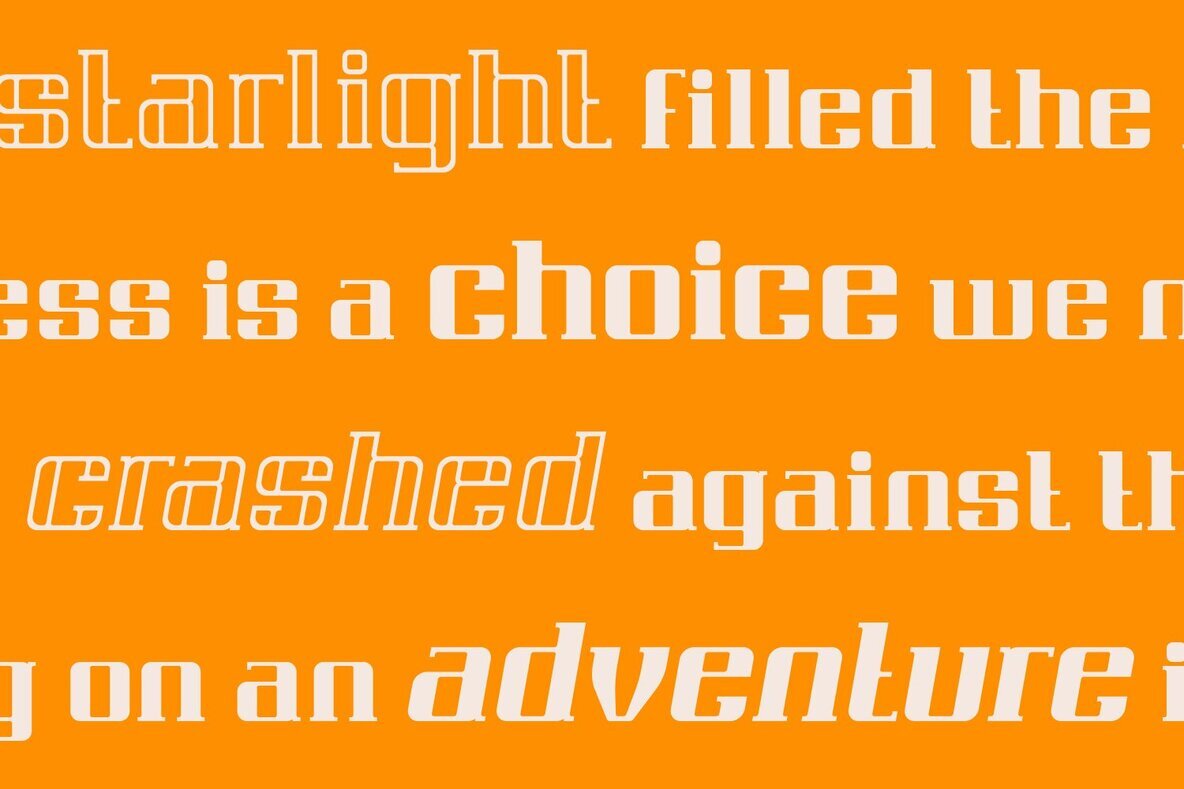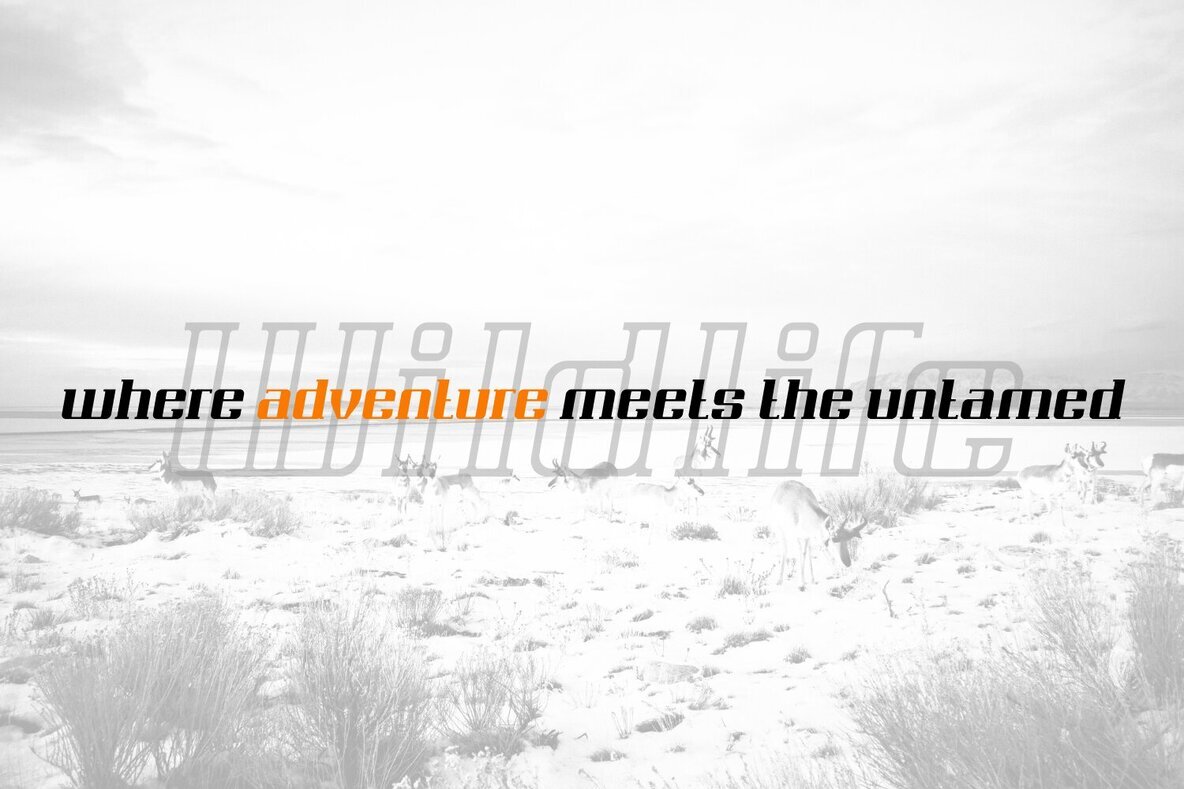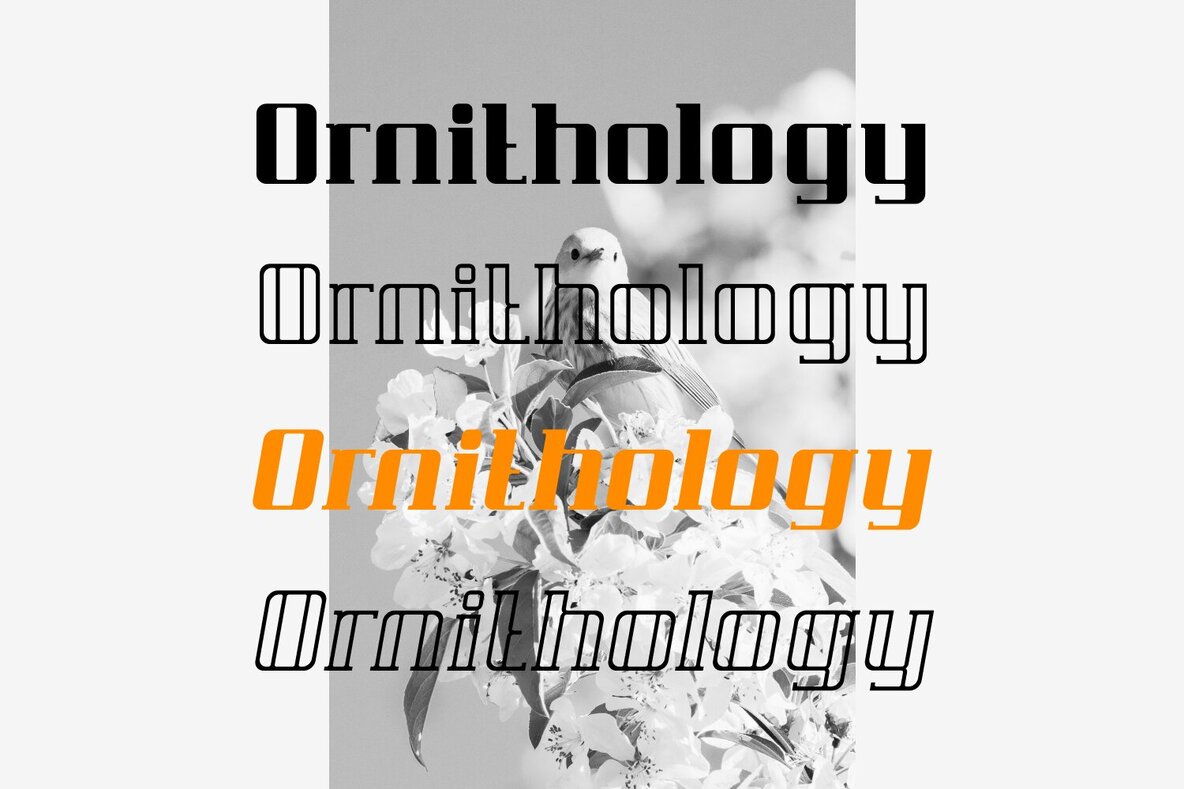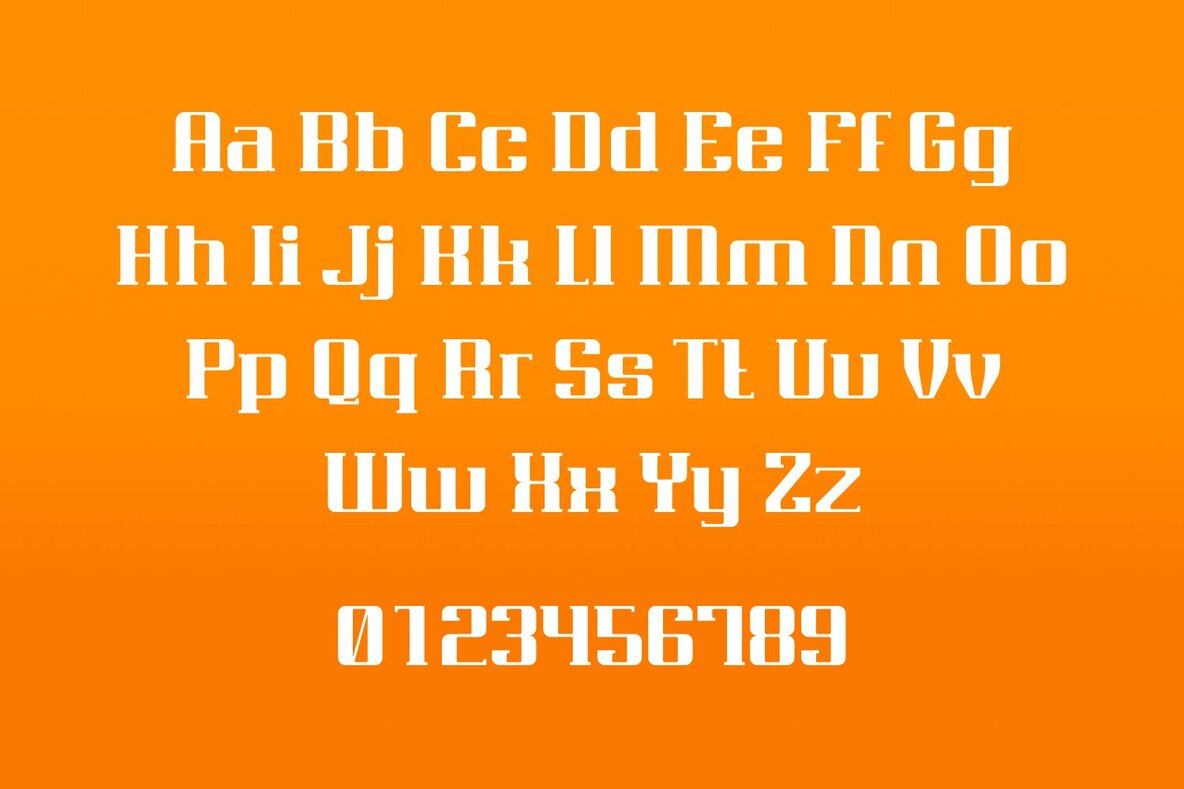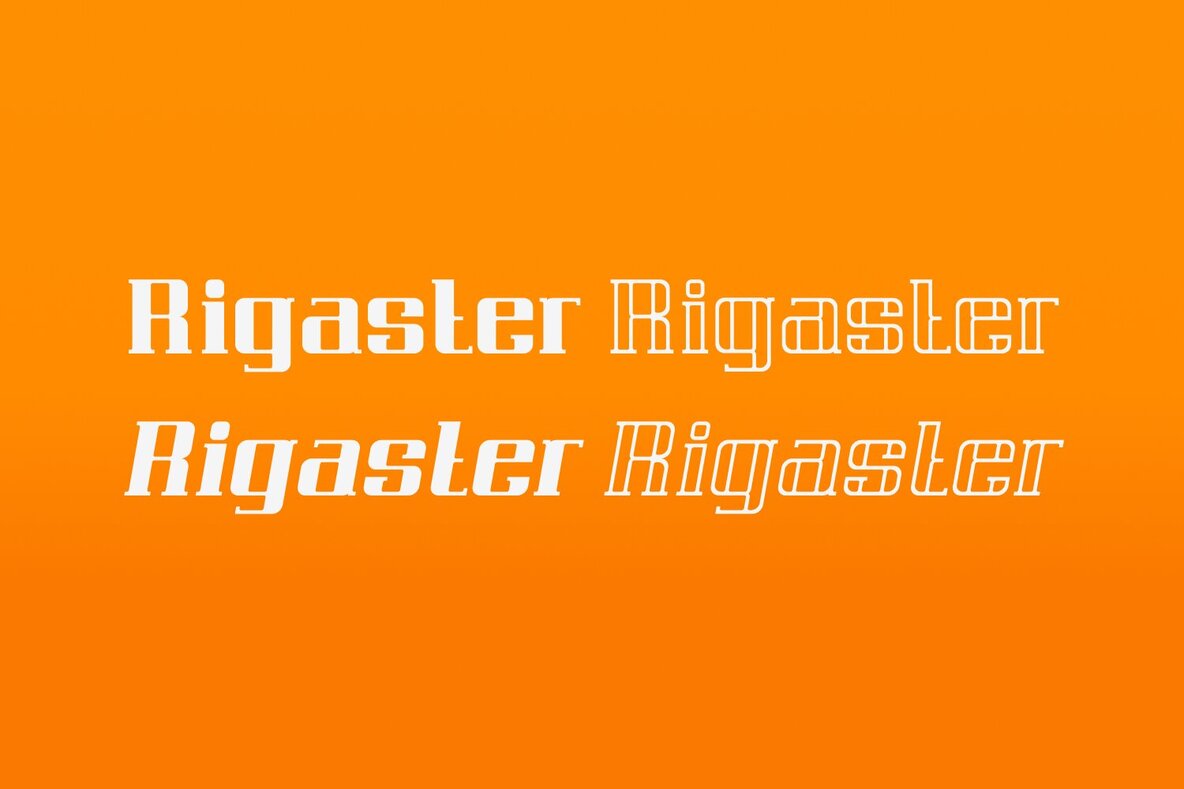
Rigaster Font
Rigaster is a font that encompasses four distinct styles, skillfully blending elements from classic serif fonts with those from modern typography. This fusion results in dynamic characteristics that lend themselves perfectly to contemporary designs as well as those with a retro aesthetic.